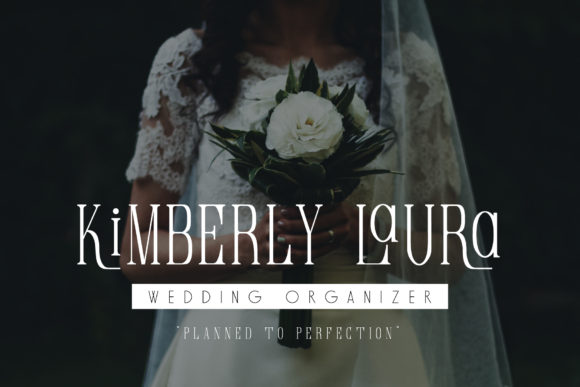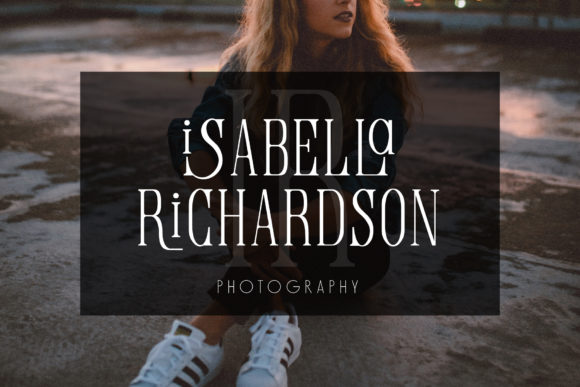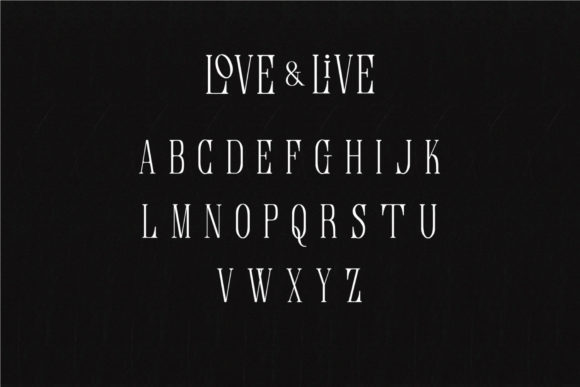
Introduction to Love & Live Font
Have you ever been working on a creative project, pouring your heart and soul into it, and then suddenly, the perfect font comes along and elevates everything to a whole new level? That’s exactly what happened to me when I stumbled upon the Love & Live Font. Its delicate, romantic feel instantly captured my imagination, and I knew I had to share it with the world.
As a designer, you understand the importance of having the right tools at your disposal. A high-quality font like Love & Live Font can make all the difference in bringing your vision to life. Whether you’re working on a wedding invitation, a romantic novel cover, or any other creative project that requires a touch of elegance, this font is sure to be your new go-to design resource.
Key Features of Love & Live Font
- High-quality font design for creative projects, ideal for designers and artists seeking a unique touch.
- Perfect for use in digital art, graphic design, and other creative projects where a unique font is required.
Honest Review: Love & Live Font
One of the standout features of this font is its versatility. It’s perfect for designing invitations, social media graphics, and even signage for events. The transparent background option allows for seamless integration into any design, making it a valuable resource for designers.
Here are some of the things that work well with the Love & Live Font:
- High-quality design: The font is crisp and clean, making it perfect for print or digital use.
- Customizable: The font is fully editable, allowing you to adjust the size, color, and style to fit your needs.
- Easy to use: The font is intuitive and easy to navigate, even for designers who are new to font design.
While the Love & Live Font is an excellent addition to any design library, there are a few limitations to be aware of: ⚠️
- Limited character set: The font only includes a limited set of characters, which may not be suitable for complex designs.
Overall, I’m really impressed with the Love & Live Font. It’s a high-quality design resource that’s perfect for creative projects. While it may have a few limitations, the benefits far outweigh the drawbacks.
How to Use Love & Live Font
Tips for Getting the Most Out of Love & Live Font
To get the most out of the Love & Live Font, use it in combination with other design elements such as images and graphics. Experiment with different font sizes and colors to create a unique and eye-catching design. You can also use the font in conjunction with other design resources such as vectors and icons.
Common Use Cases for Love & Live Font
The Love & Live Font is perfect for a variety of creative projects including event invitations, social media graphics, and blog posts. It’s also great for personal projects such as photography albums and scrapbooks.